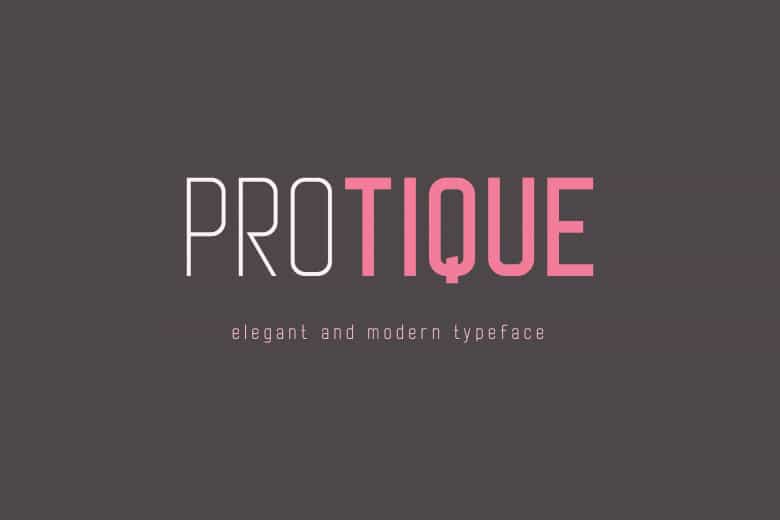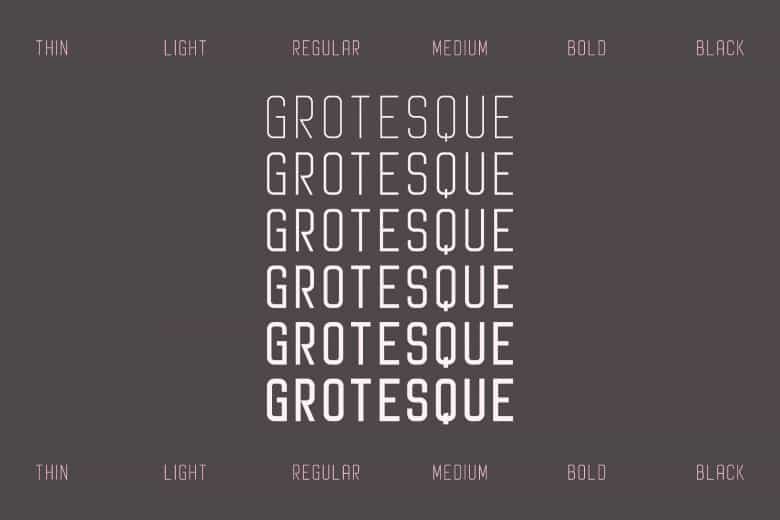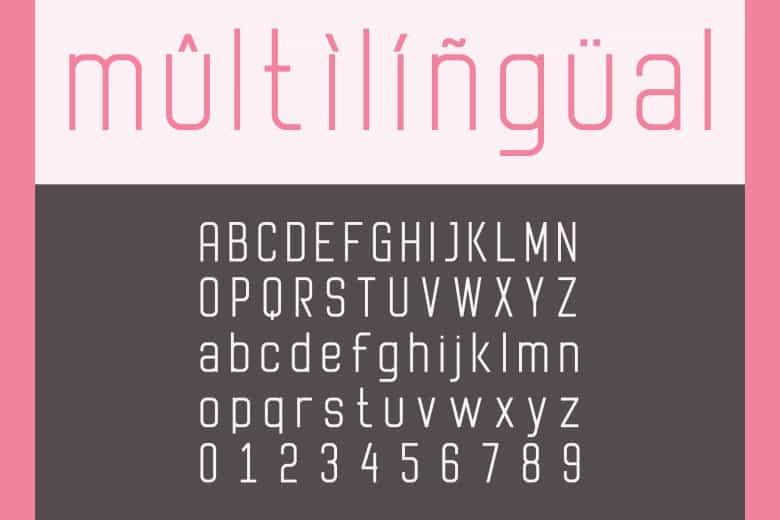
Protique is a modern and stylish sans serif font available in six weights from slim to black. This multipurpose font provides endless design opportunities when used for layout or design of work; Protique makes the ideal font to do this while remaining stylishly modern at all times.